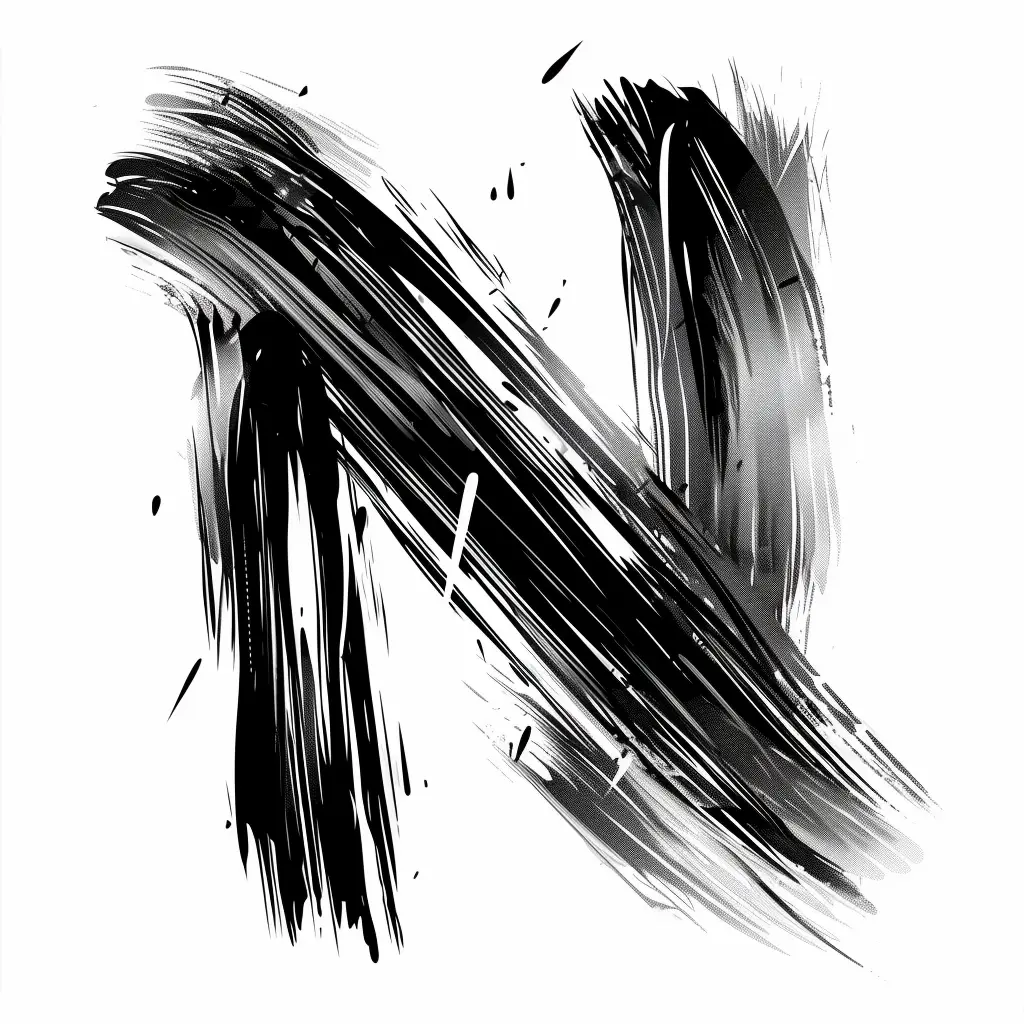
This image features an abstract, stylized letter "N" rendered in bold black brushstrokes against a white background. The design uses dynamic, textured lines with varying thickness and splatter effects, creating a sense of movement and energy. The monochromatic color scheme emphasizes the contrast between the dark, expressive strokes and the clean, light backdrop.